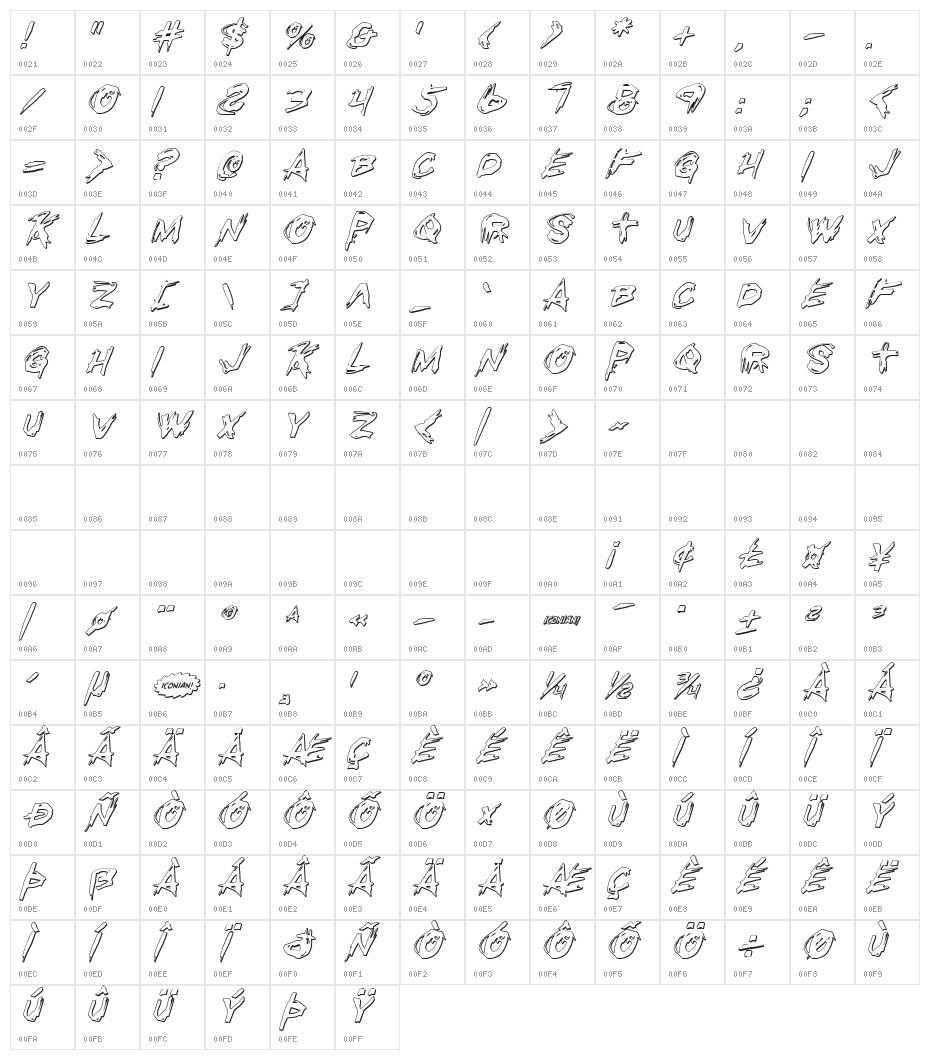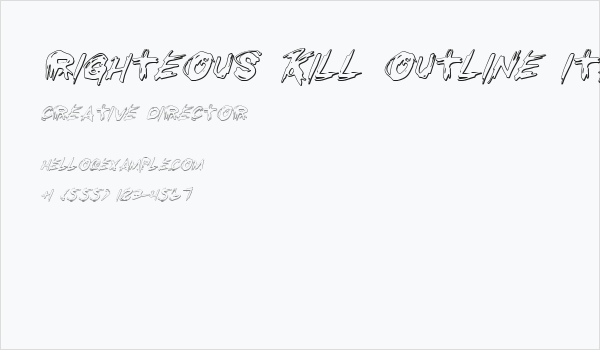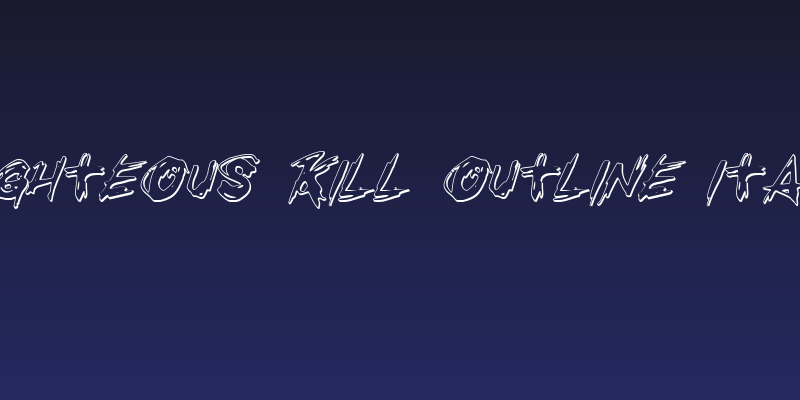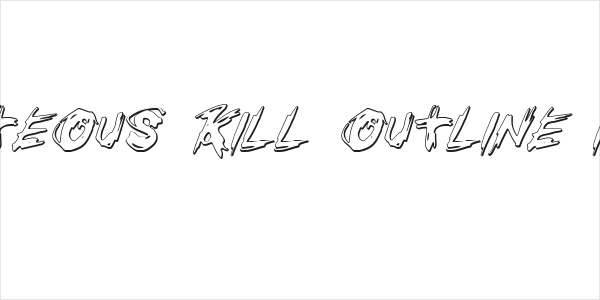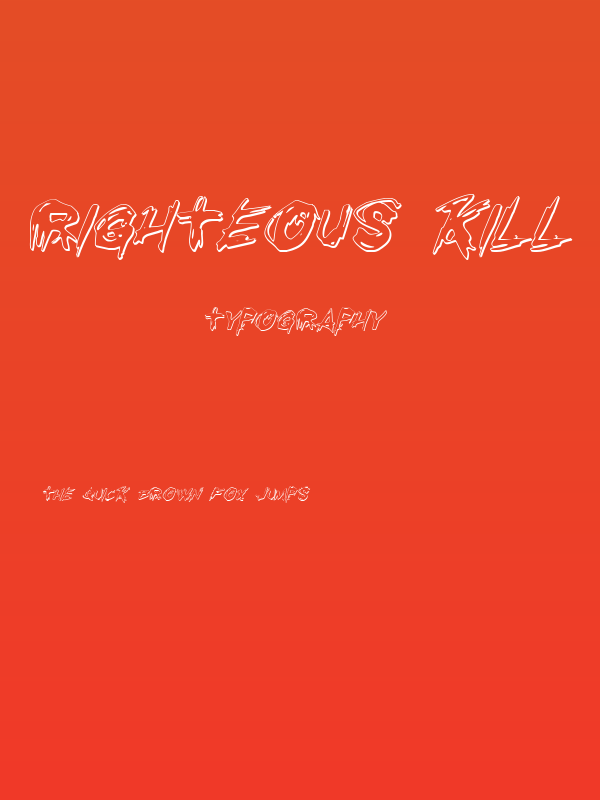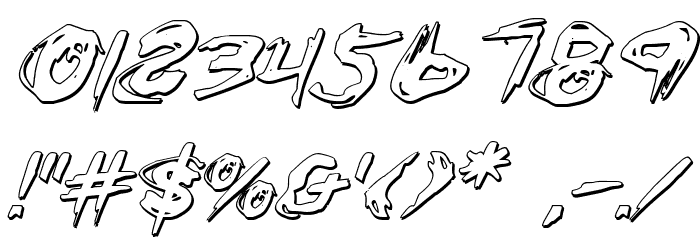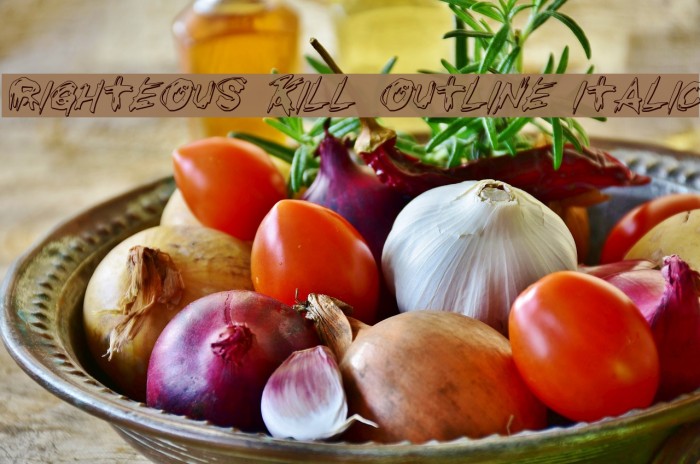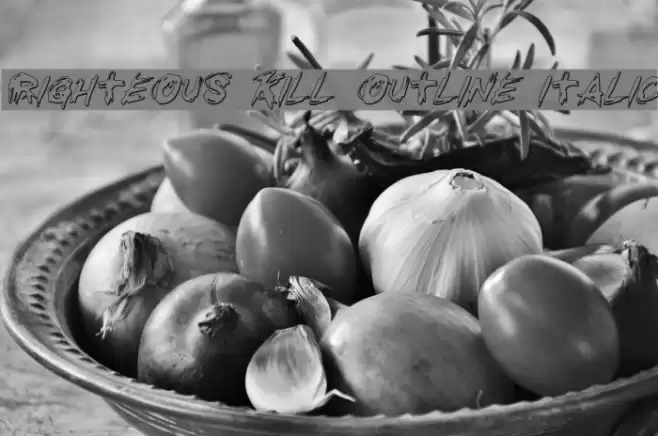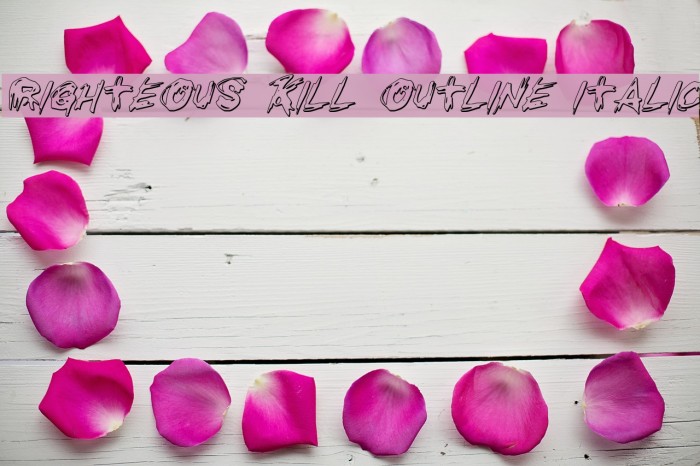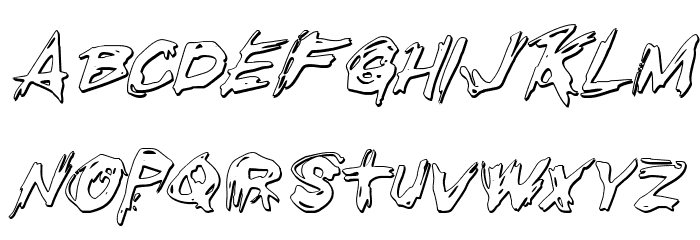
Righteous Kill Outline Italic Font
Righteous Kill Outline Italic Description
This font features a bold, edgy outline style with a distinct italic slant, giving it a dynamic and energetic appearance. The characters are designed with a rough, hand-drawn aesthetic, incorporating irregular strokes and sharp angles that create a sense of movement and intensity. The uppercase and lowercase letters maintain a consistent style, while the numbers and special characters complement the overall design. This font is ideal for projects that require a bold statement or a creative, unconventional look.
| Overall Style | Modern, Decorative |
| Proposed Projects | Perfect for album covers, posters, graffiti art, and edgy branding projects. |